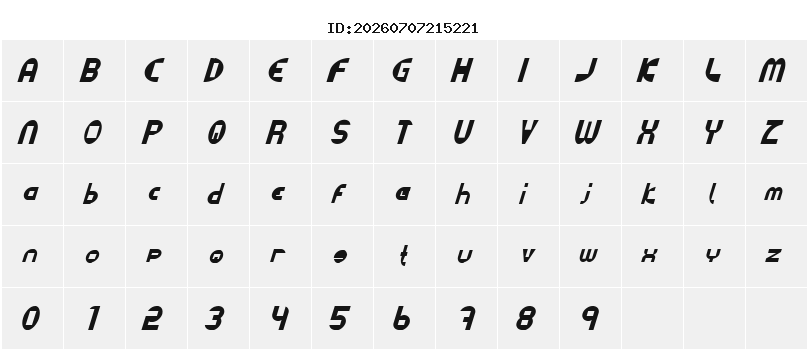
Datacut Preview
• Font Name: Datacut
• Font ID: Datacut Italic
• Full Font Name: Datacut Italic
• PostScript Name: DatacutItalic
About Datacut.ttf
Datacut.ttf is a modern, elegant sans-serif font designed for ultimate readability and visual harmony. Perfect for branding, headlines, web design, and print materials.